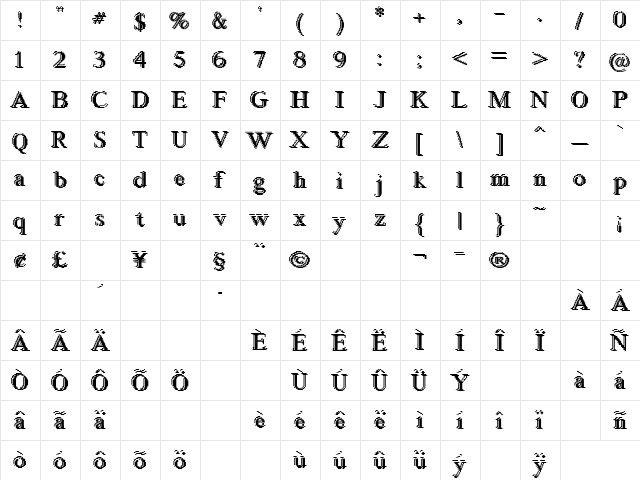
Blockstepped Regular
Design Context for Blockstepped Typeface
Blockstepped takes a measured approach to typography — its balanced proportions and neutral character make it a reliable workhorse for both digital and print work.